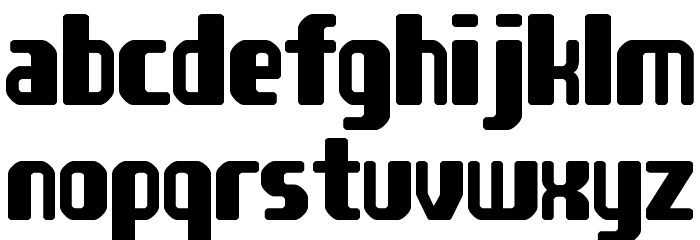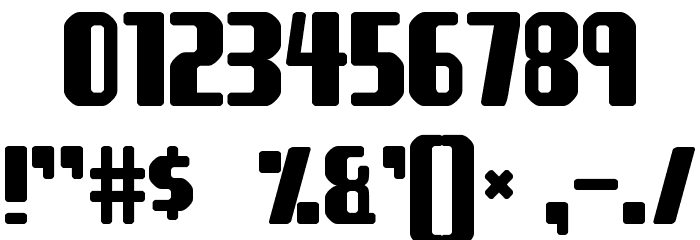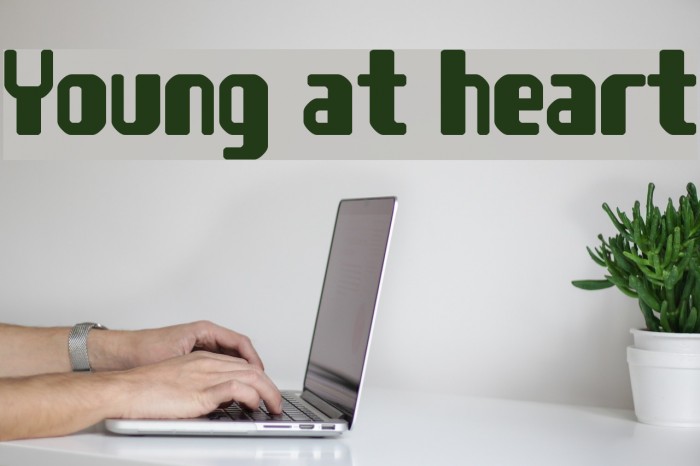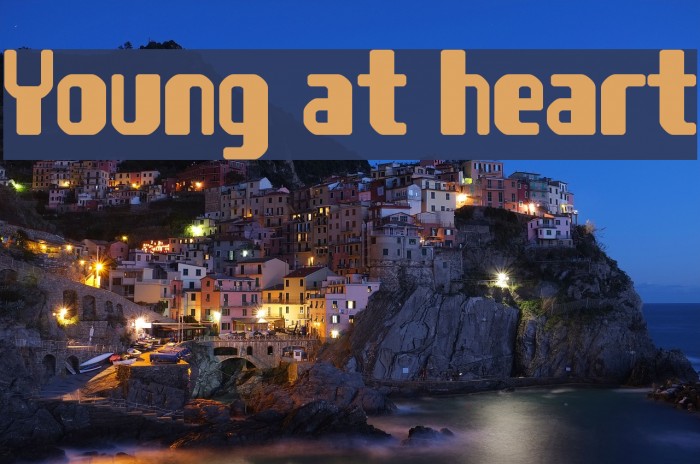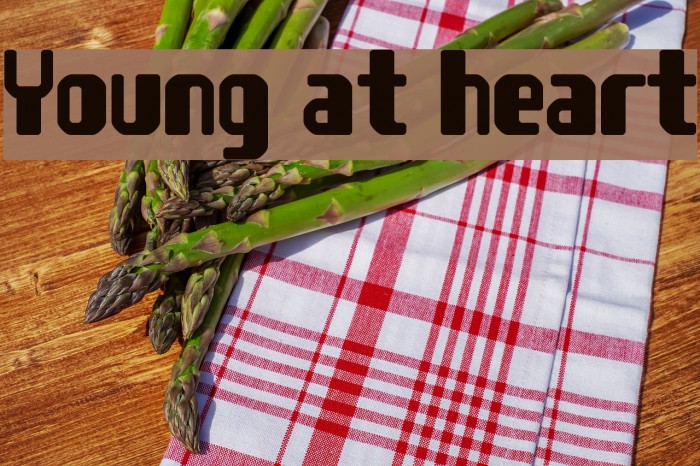
Young at heart Font
This font features a bold and playful design with rounded edges and a strong presence. The characters are uniformly thick, giving it a robust and solid appearance. The uppercase and lowercase letters maintain a consistent style, with a slight retro feel that adds charm and personality. The numbers and special characters are equally bold, ensuring readability and impact. This font is ideal for projects that require a fun and engaging look, such as children's books, posters, or branding for playful products.
A bold, playful font with rounded edges and a retro feel.
- Proposed Projects: Ideal for children's books, playful branding, posters, and retro-themed designs.
- Overall Style: Retro, Playful